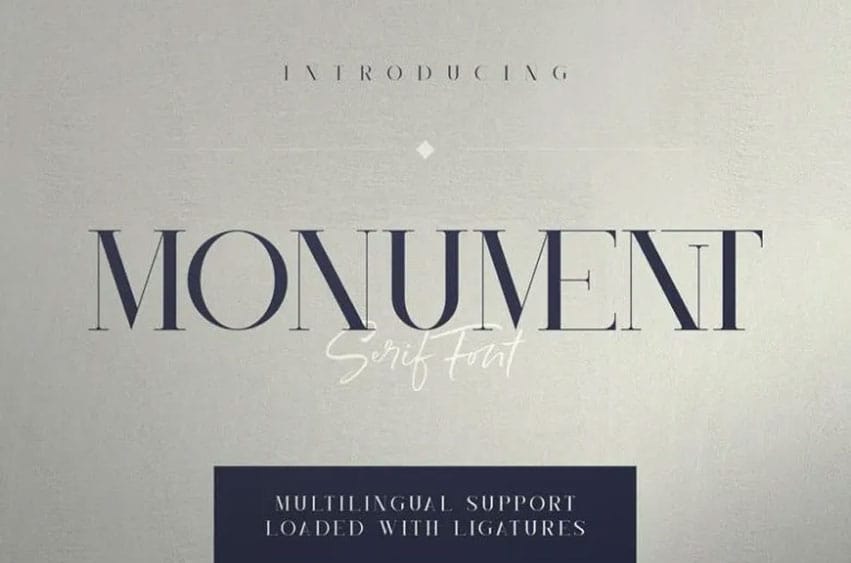
Monument Font is modern and elegant typeface with four different styles which is packed with ligatures and supports multiple languages. It is a very good font that is applicable for different sizes and looks good both in large and small sizes.
Monument is ideal for branding, home decor, product, packaging, magazine titles – or to overlay any picture with a classy text.